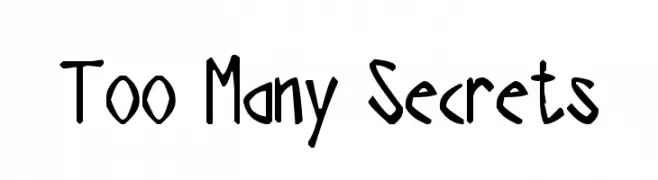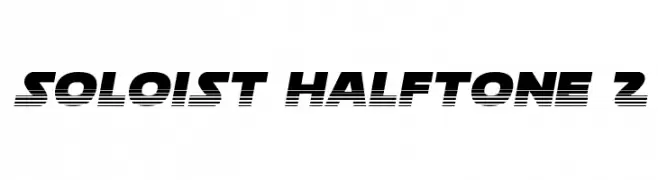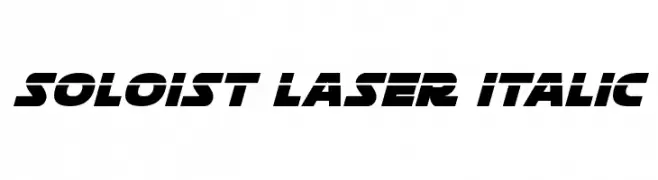
A playful, informal handwritten font with irregular strokes.
A clean, modern sans-serif font with uniform stroke width and balanced spacing.
A bold, modern font with a halftone effect and strong horizontal lines.
A bold, italicized font with a futuristic and dynamic style.
A playful, hand-drawn script font with bold, sweeping strokes.